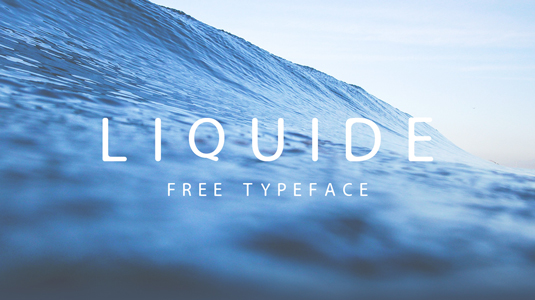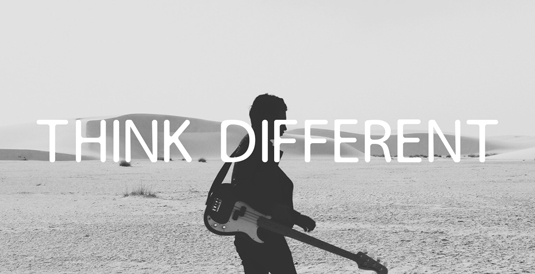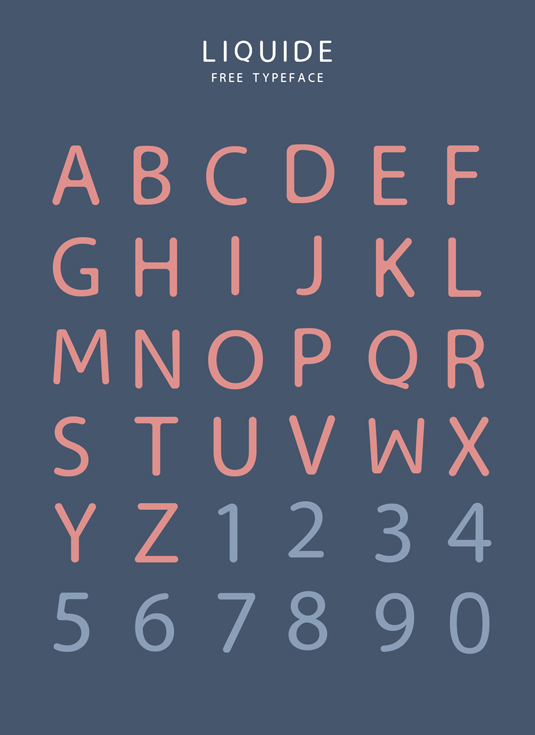
Font of the day: Liquide
Every day we showcase the best fonts on the web. Today it's Liquide by Philip Fisser, which is totally free to download.
Liquide by Philip Fisser
Kicking our font of the day posts this week is modern typeface Liquide, created by designer Philip Fisser. Made from simple shapes and smooth edges, Liquide is perfectly suited to poster, logo and web designs.